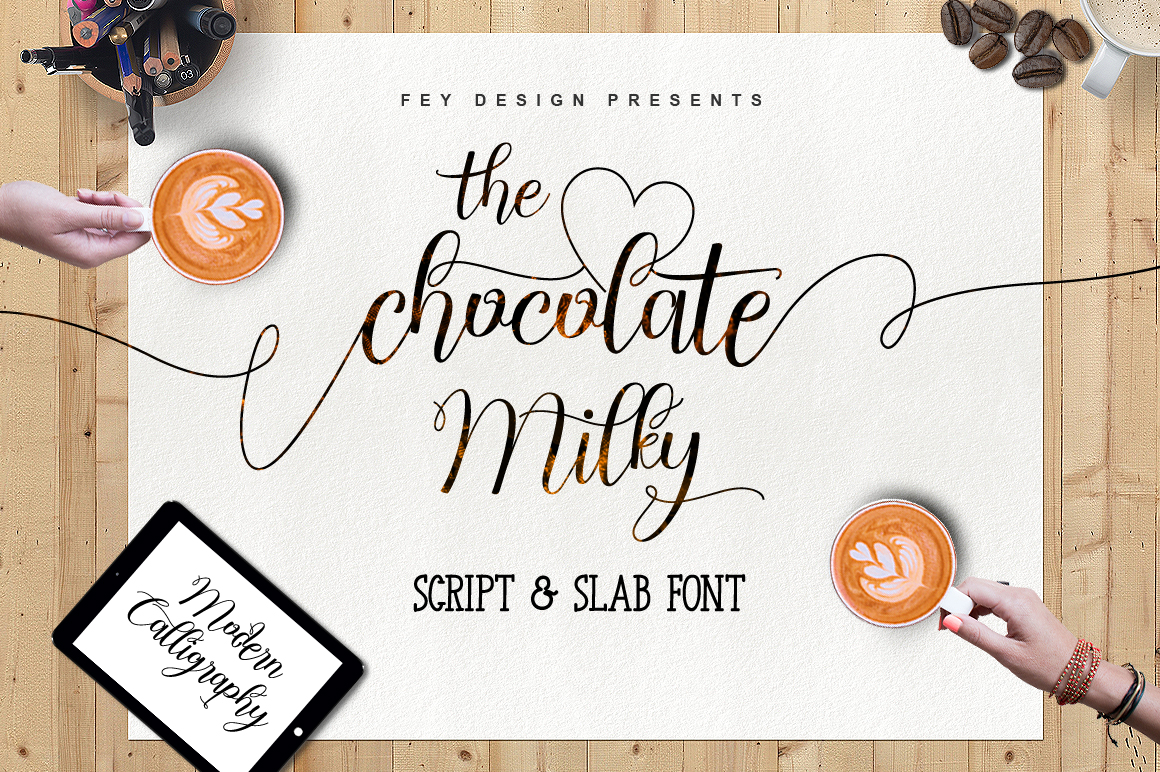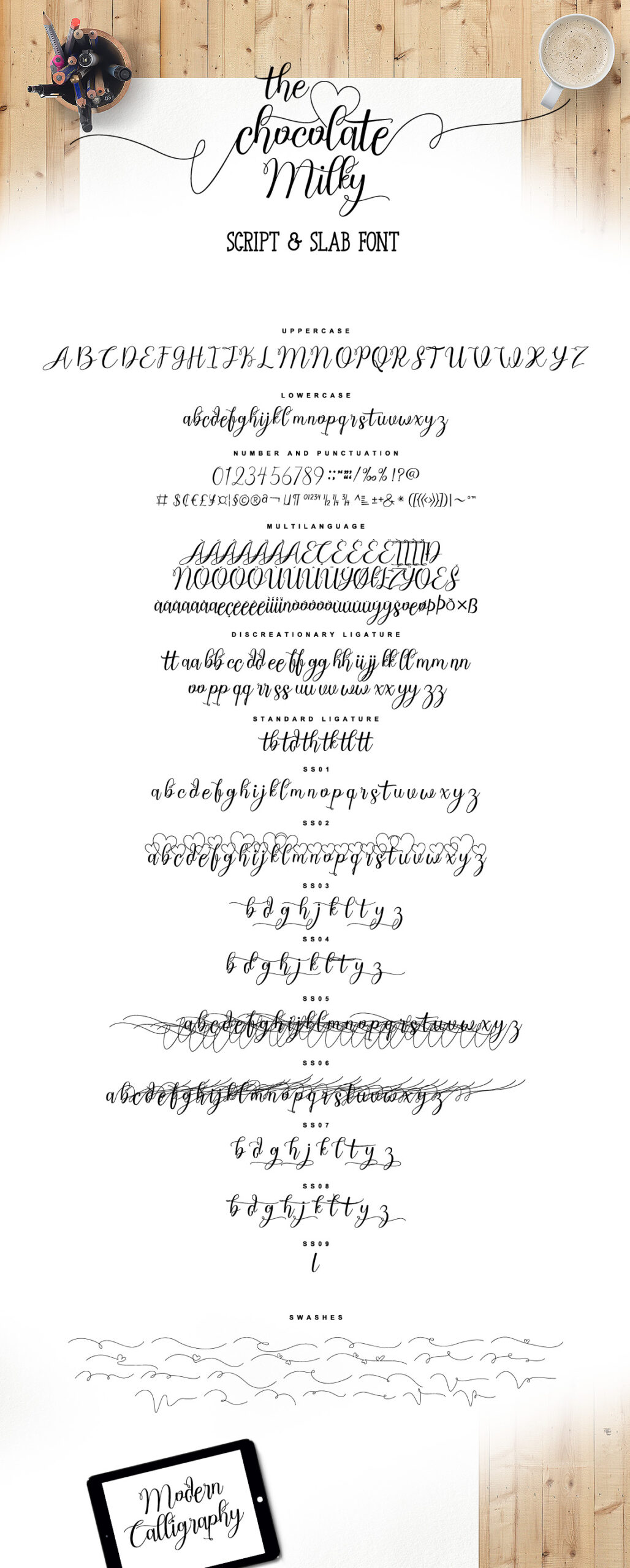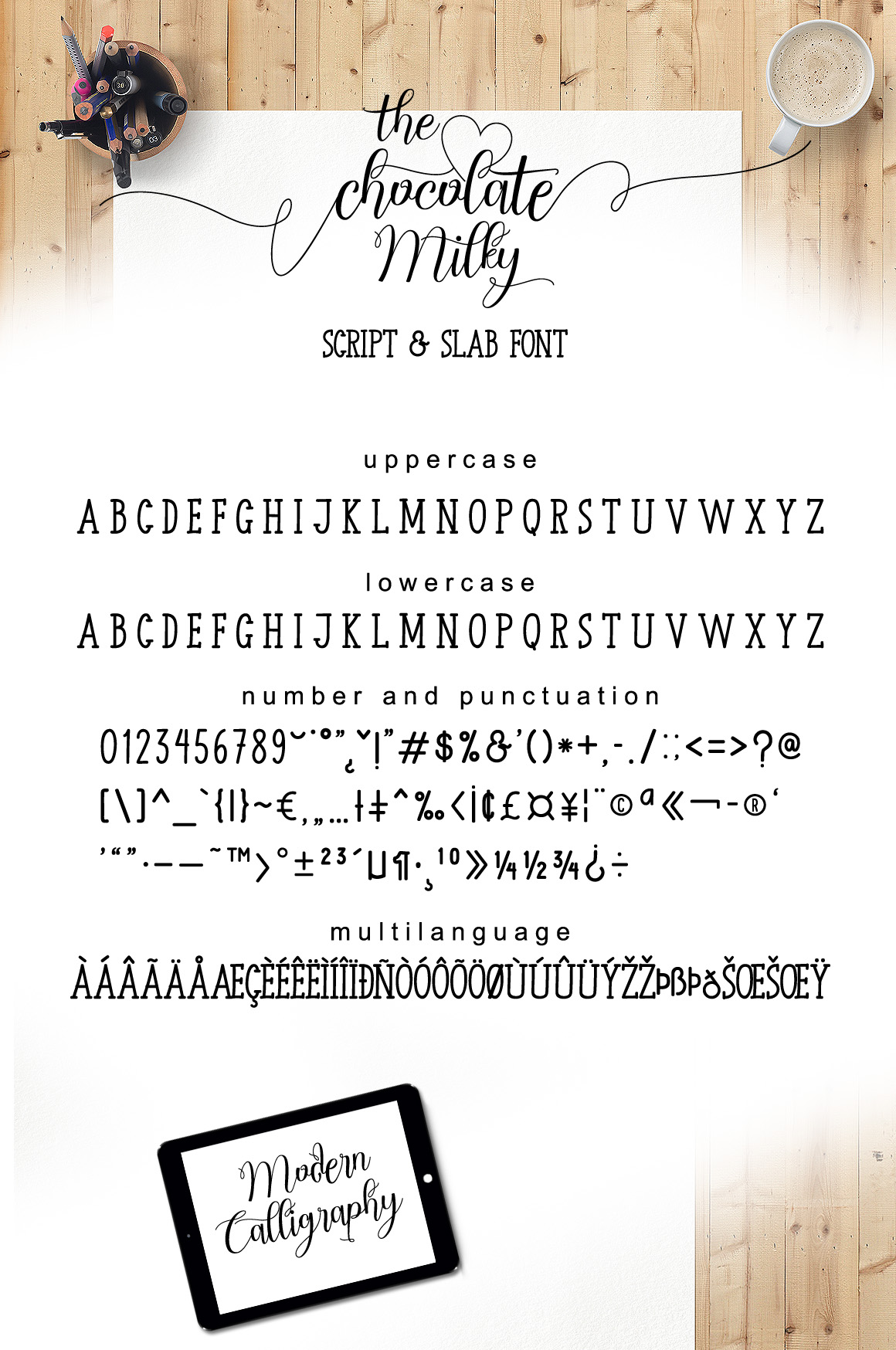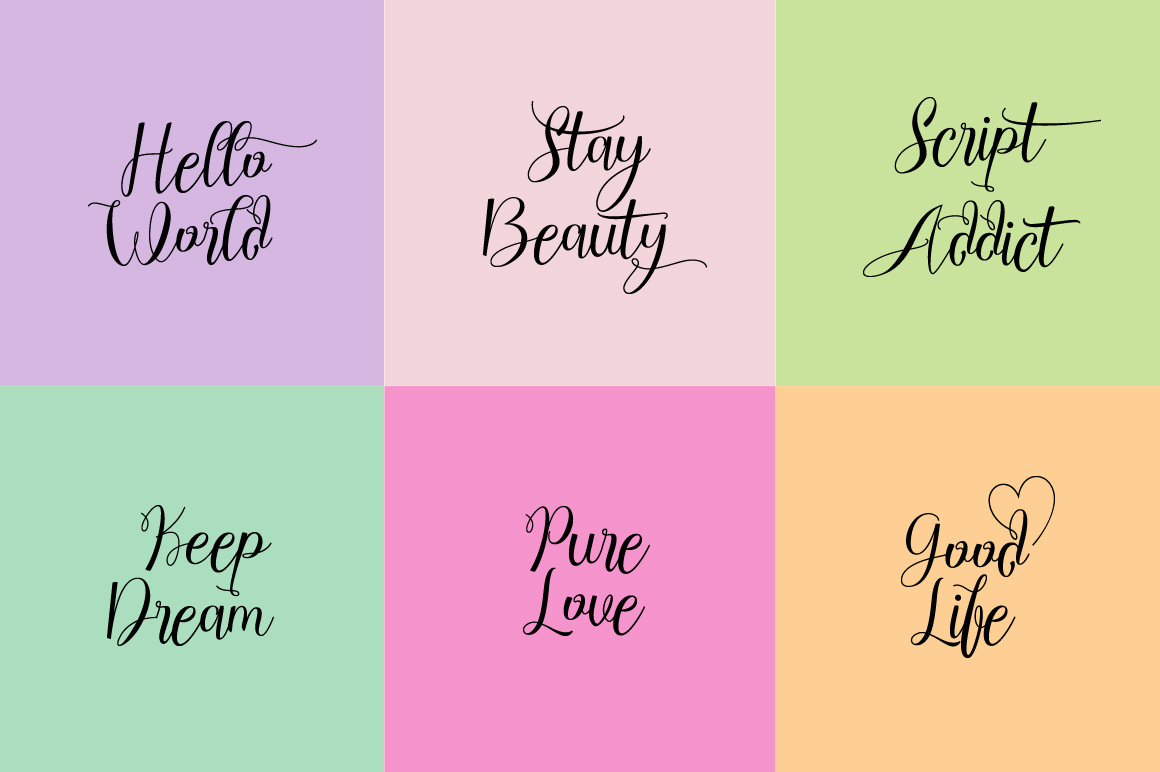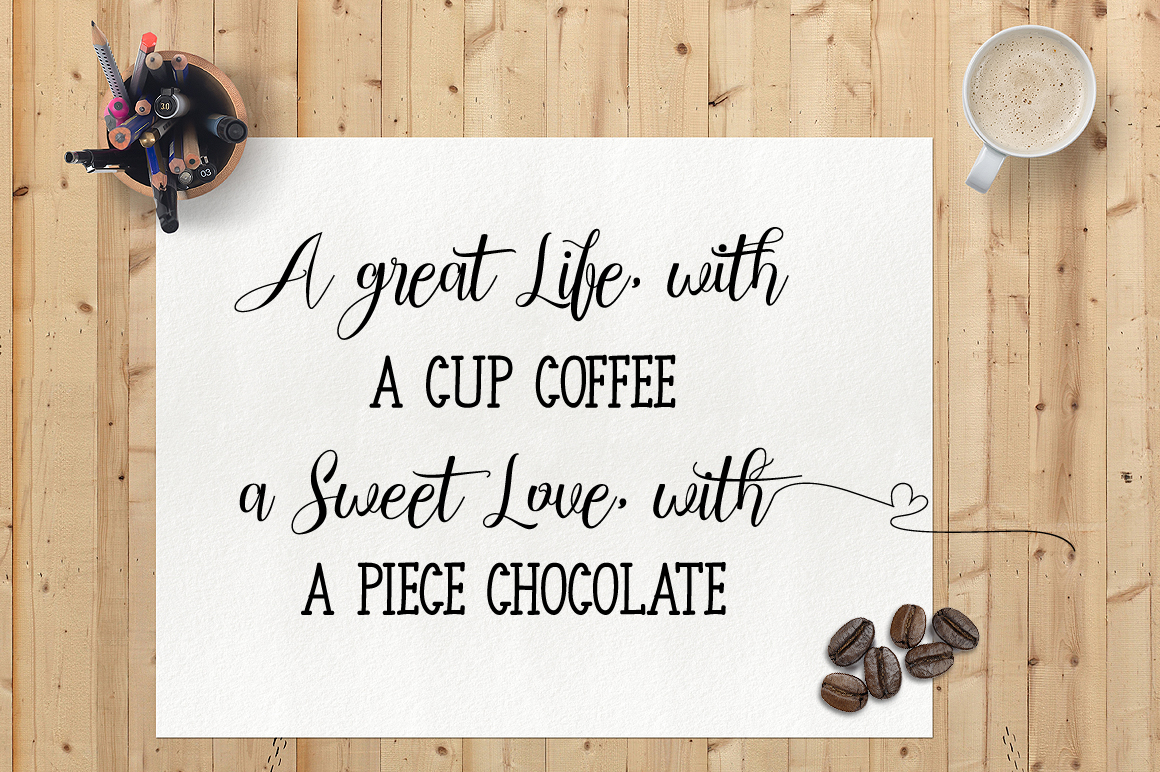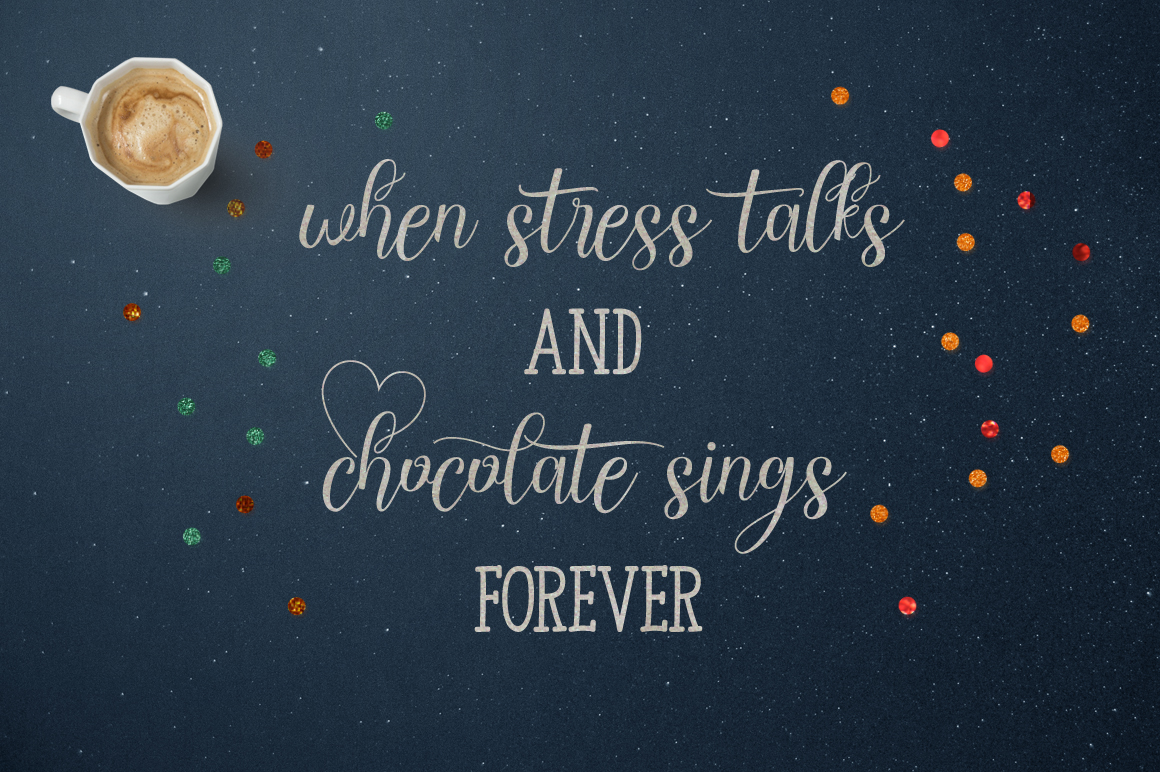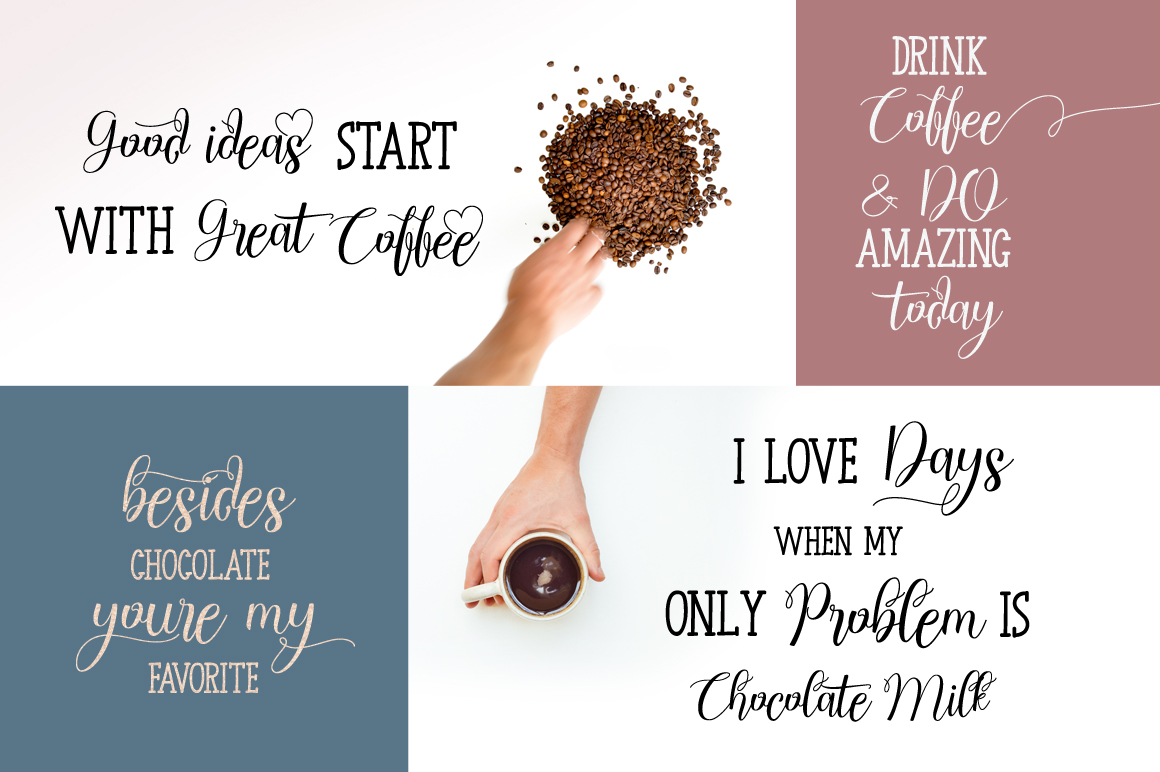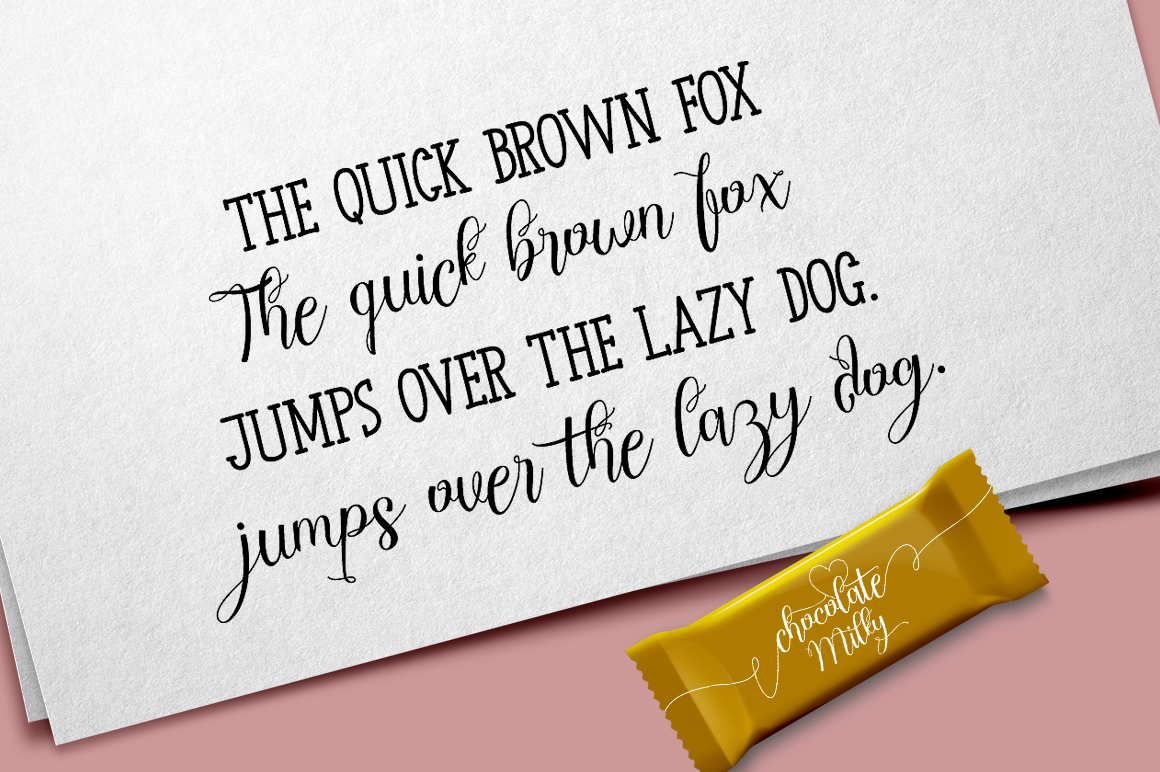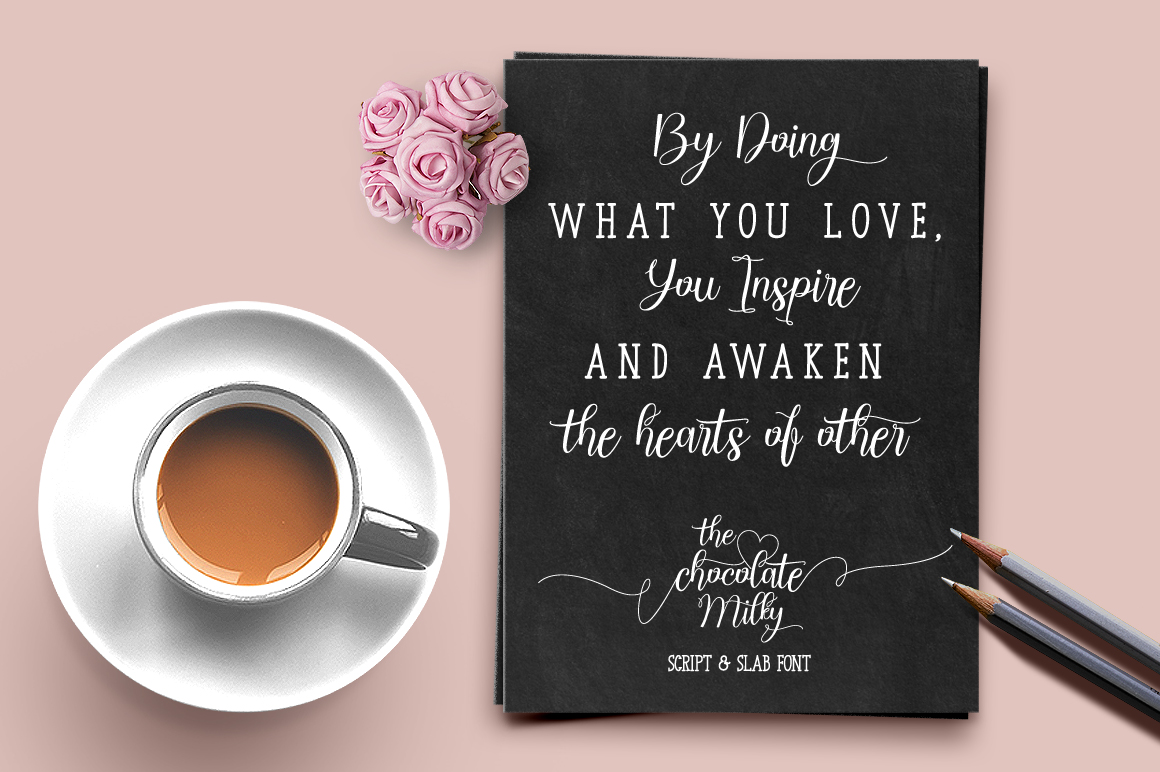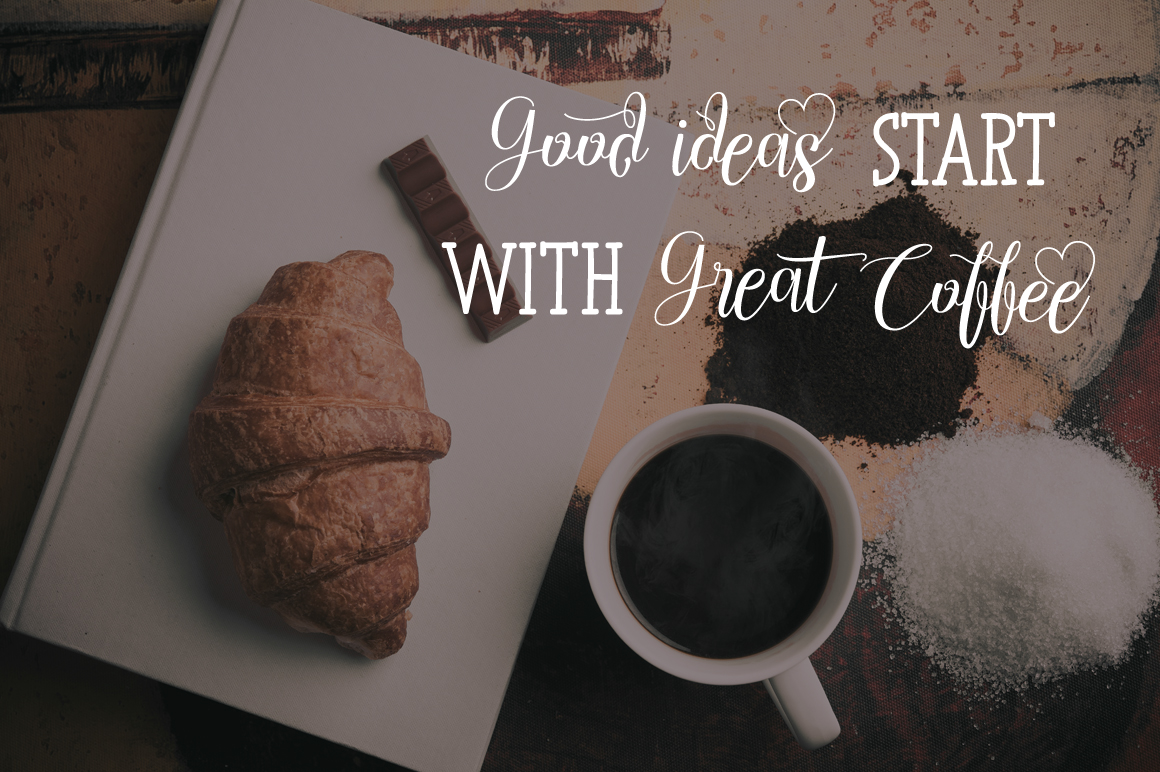
Chocolate Milky Font
About Chocolate Milky Font
Chocolate Milky is a beautiful handwritten font with tons of alternates and beautiful swashes that give it a romantic and entrancing appeal. This font is ideal for headlines and title text, and can give all your print and digital designs an unparalleled loveliness.